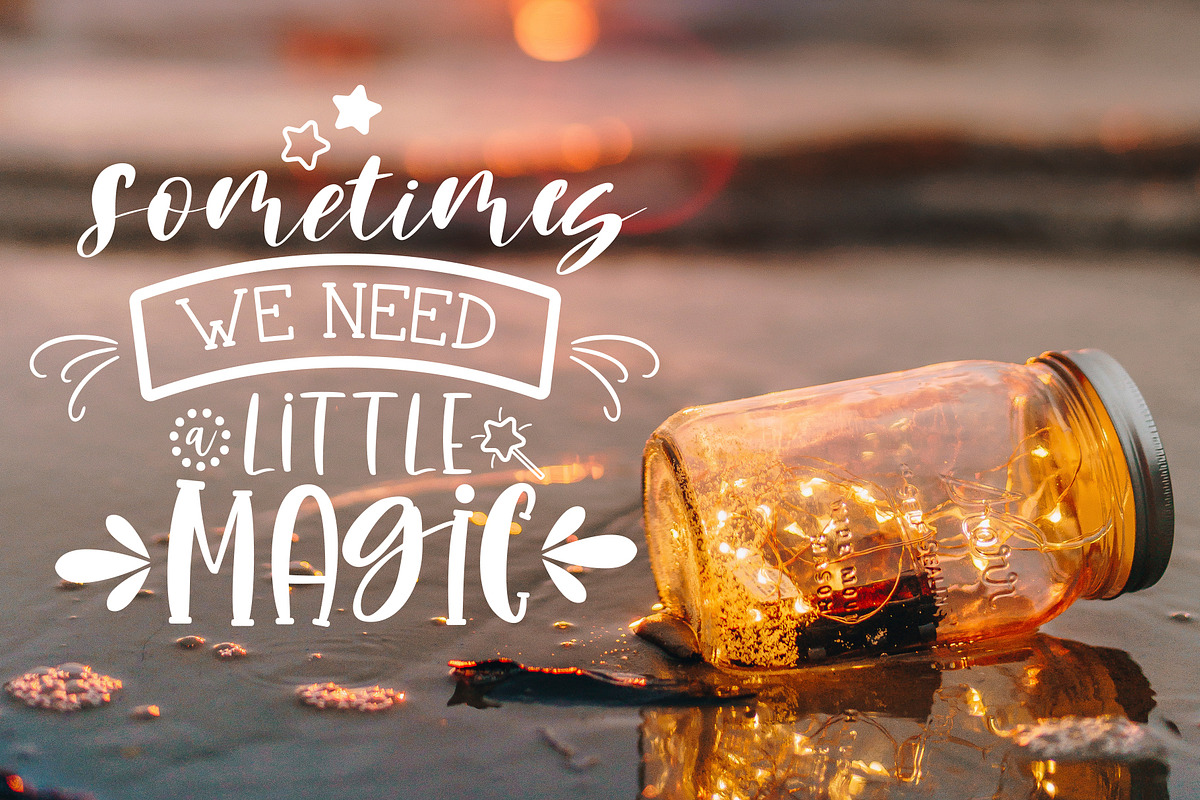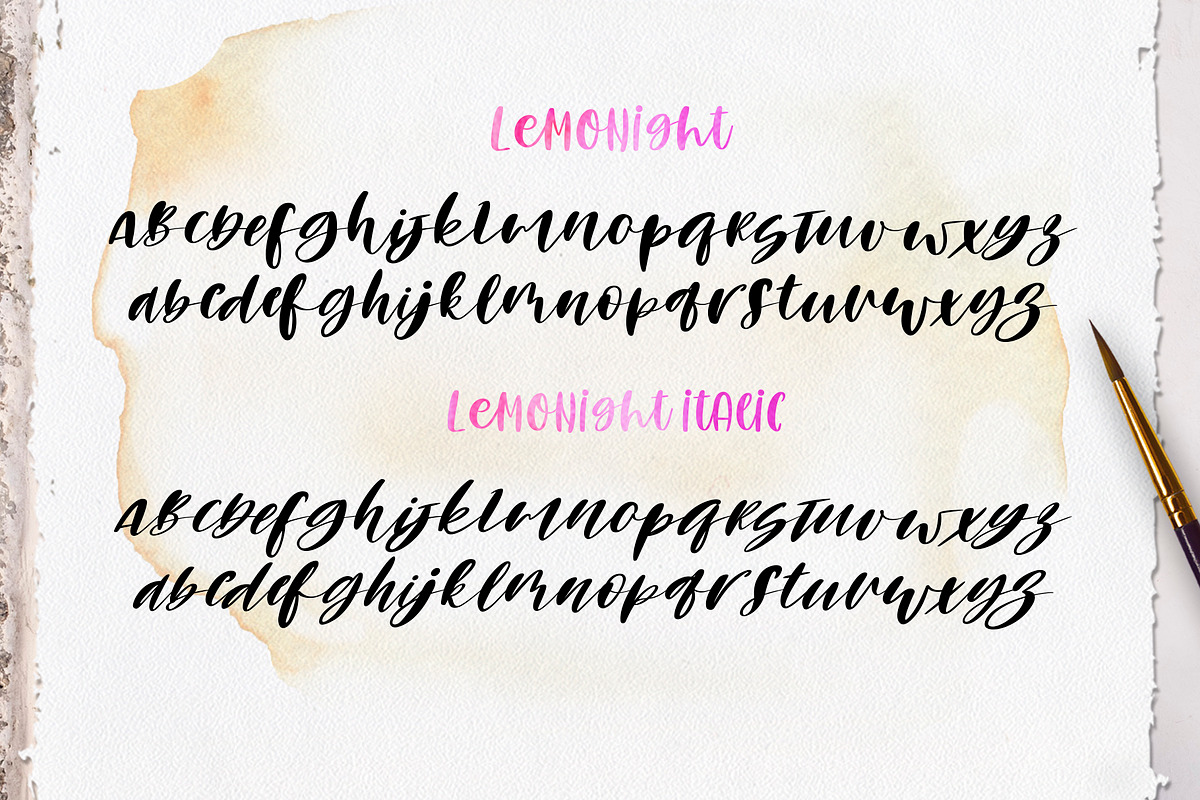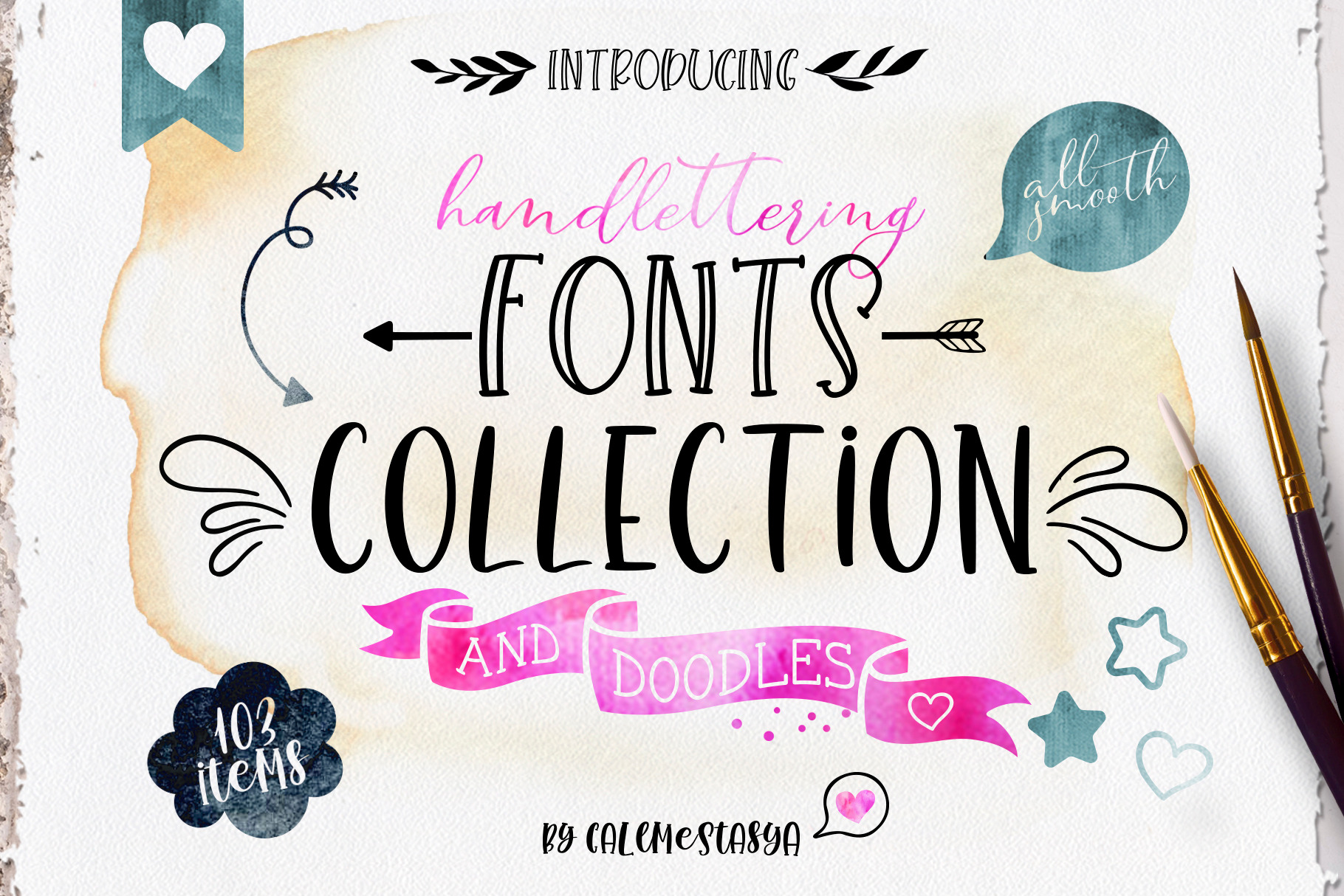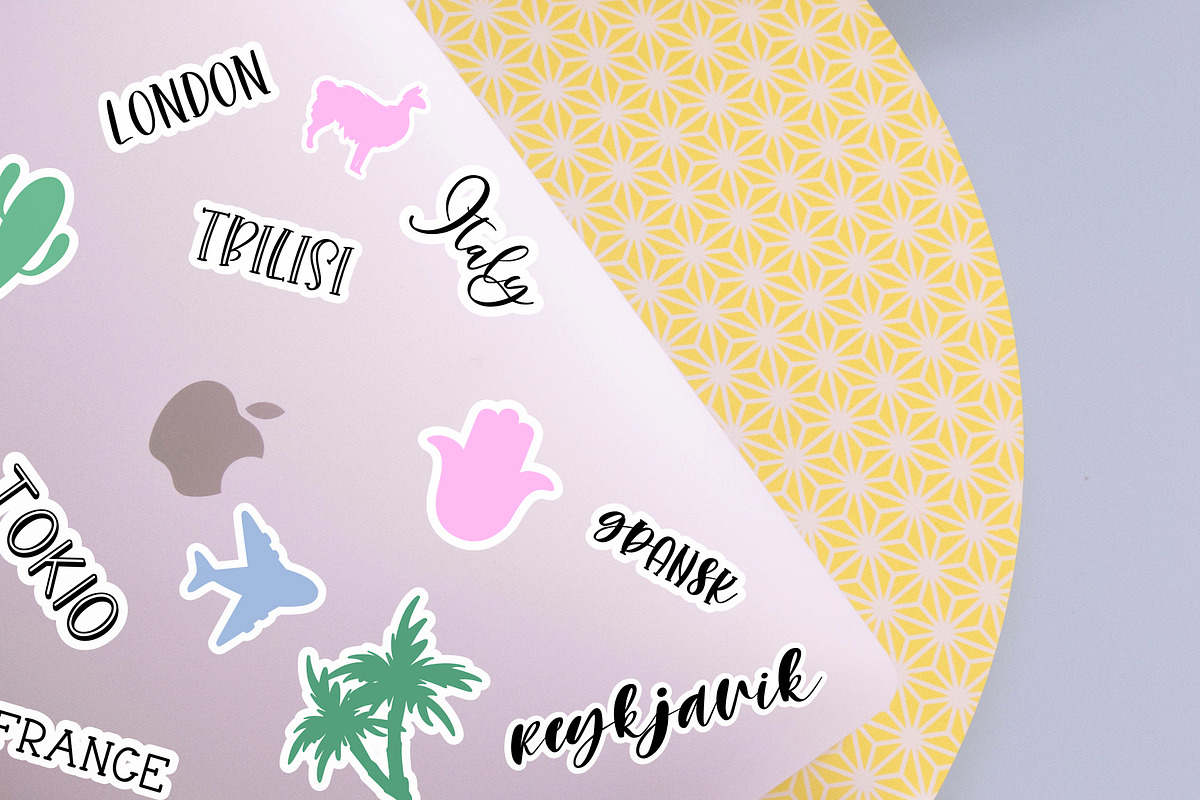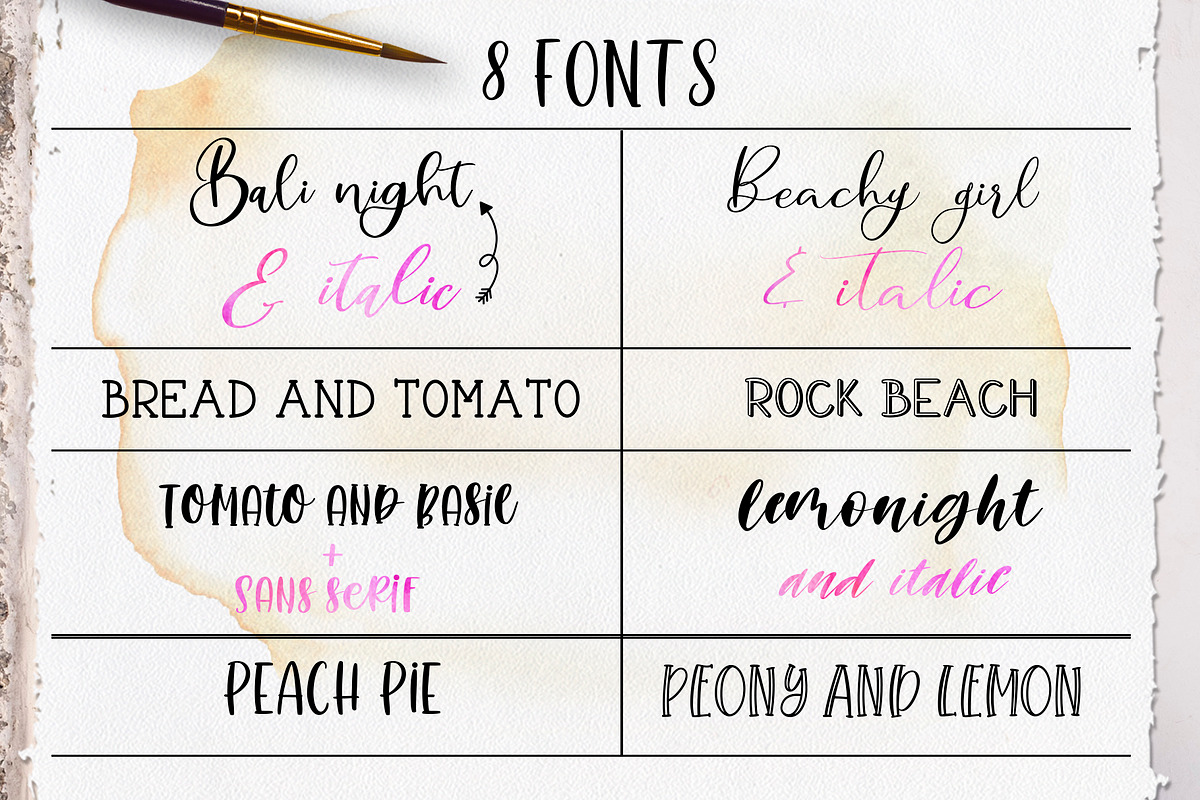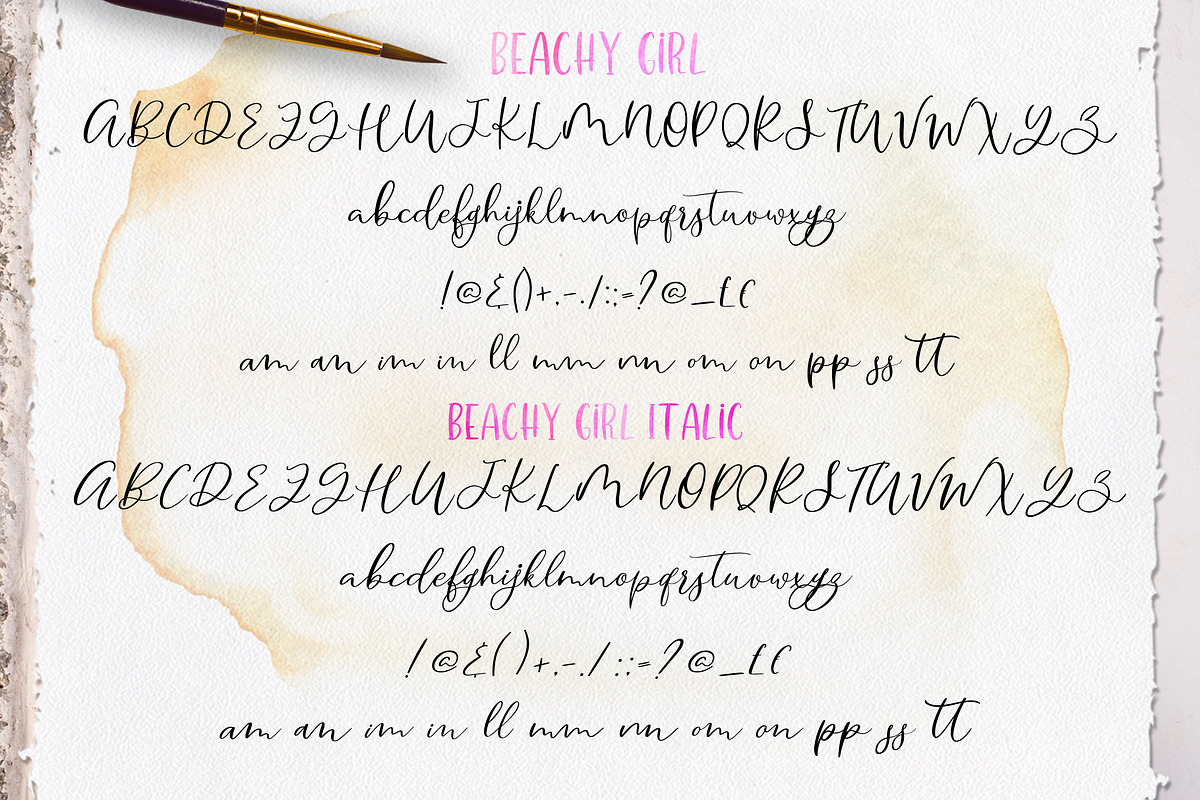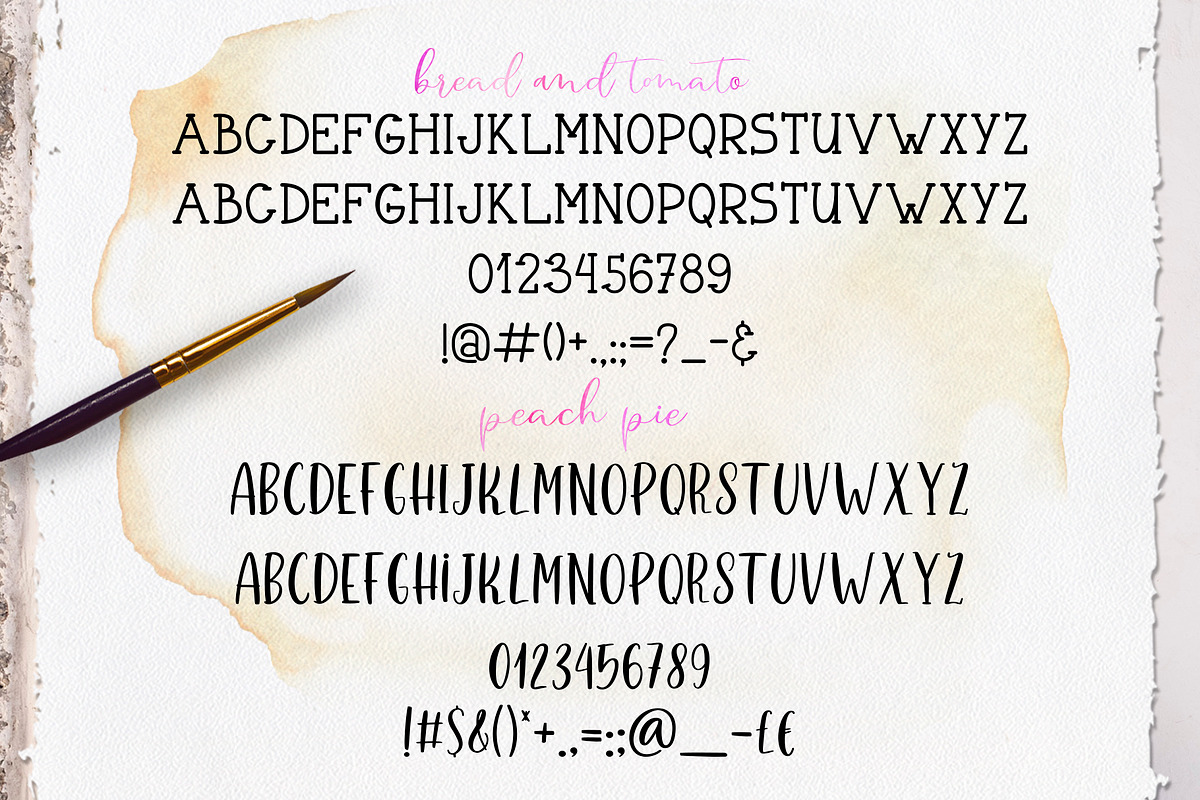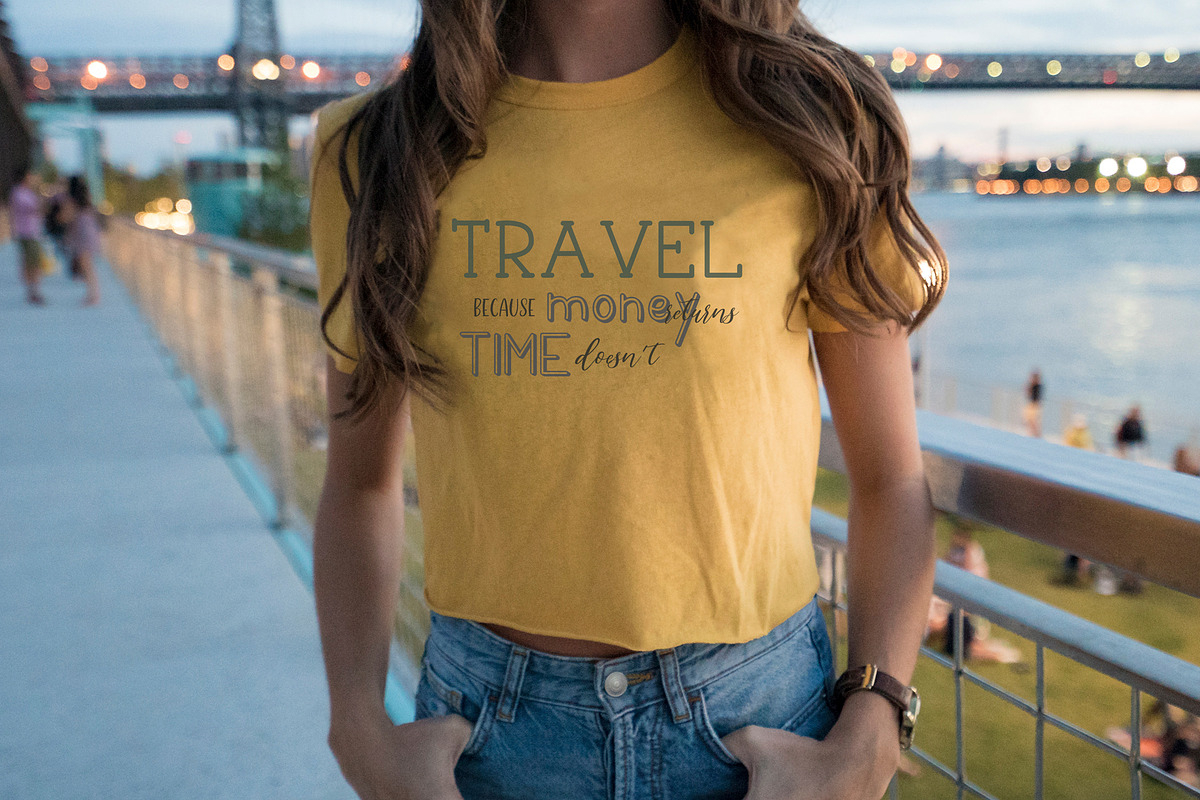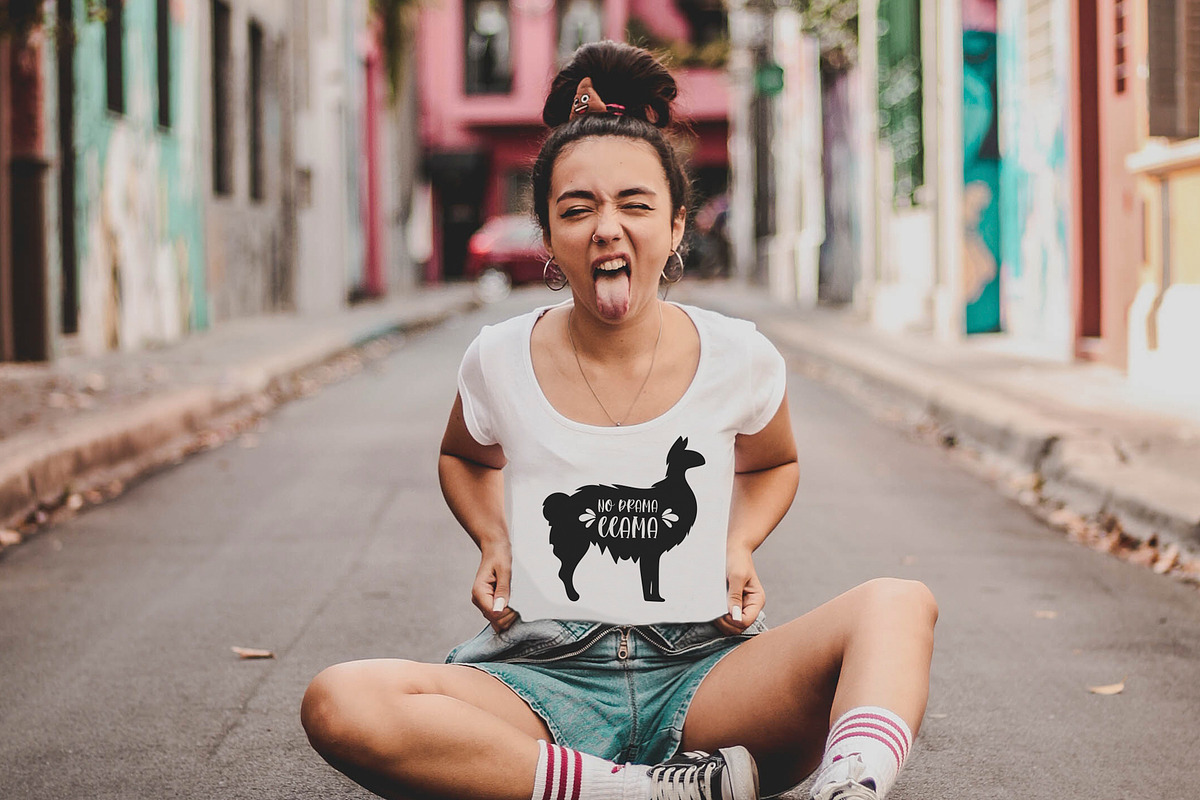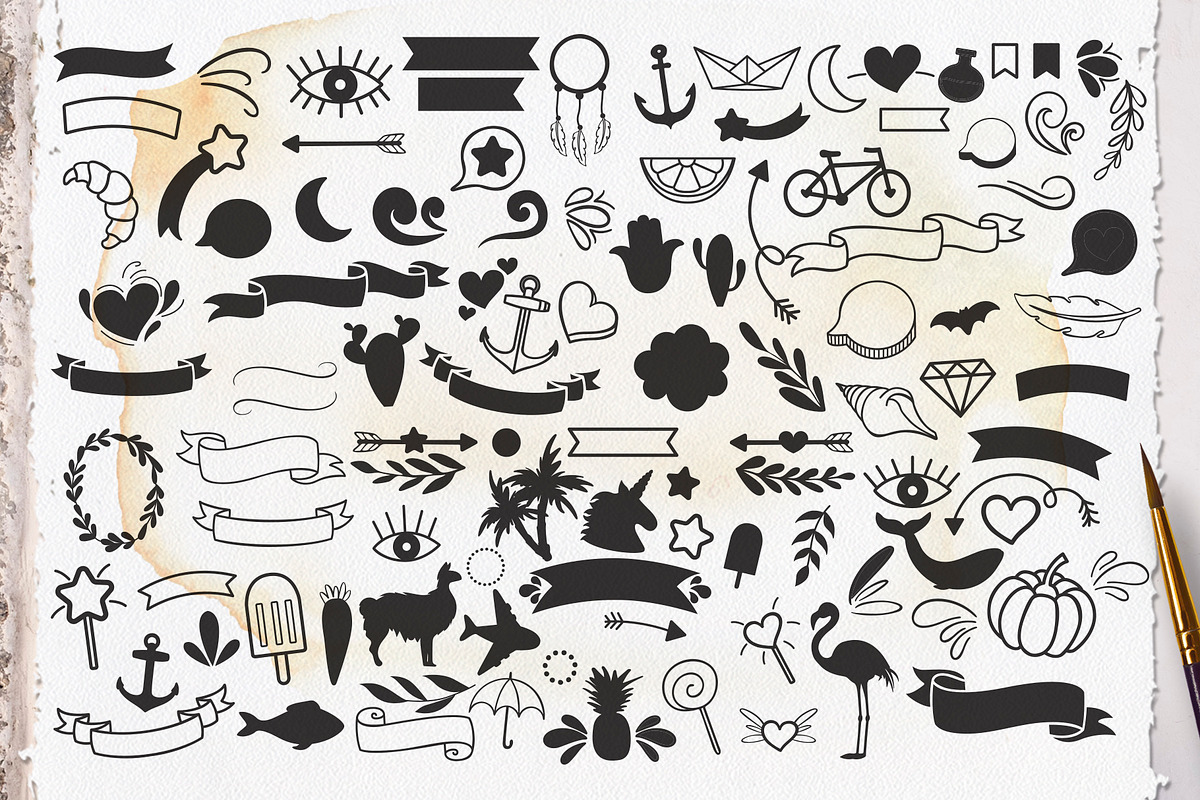
Handlettering Fonts Collection
Glade to introduce my new font collection - Smooth Handlettering Fonts Collection & Doodles
- Bali night - modern calligraphy script font ( OTF, TTF )
- Bali night italic - modern calligraphy italic script font ( OTF, TTF )
- Beachy Girl - cute script font ( OTF, TTF )
- Beachy Girl italic - cute italic script font ( OTF, TTF )
- Bread and tomato - serif font. All caps ( OTF, TTF )
- Peach Pie - cute sans serif font ( OTF, TTF )
- Peony and Lemon - decorative font. All caps ( OTF, TTF )
- Rock Beach - decorative font ( OTF, TTF )
- Tomato and basil - perfect to combinate uppercase and lowercase ( OTF, TTF )
- Tomato and basil sans serif - sans serif font. Perfect to combinate uppercase and lowercase ( OTF, TTF )
- Lemonights - script font. Please note! This font doesn't include numbers and punctuation, but it's perfect to combinate with Tomato and Basil Sans Serif ( OTF, TTF )
- Lemonights italic - script font. Please note! This font doesn't include numbers and punctuation, but it's perfect to combinate with Tomato and Basil Sans Serif ( OTF, TTF )
- 103 doodles elements ( EPS 10)